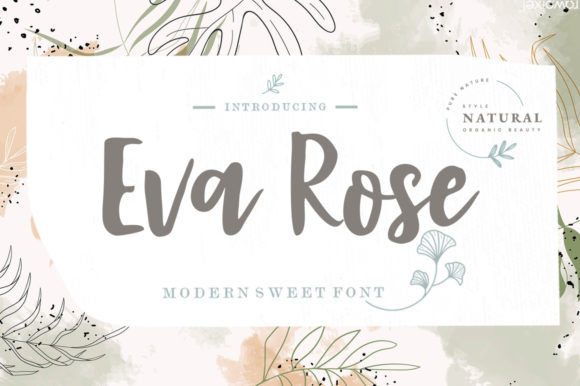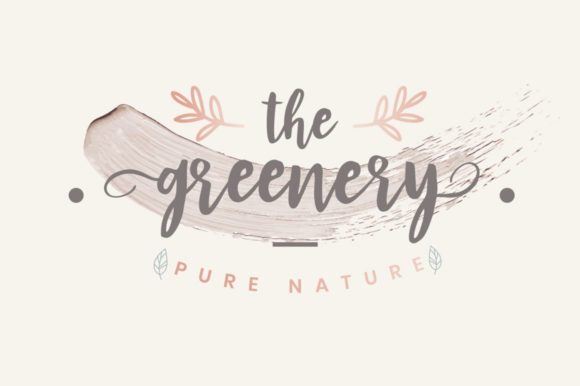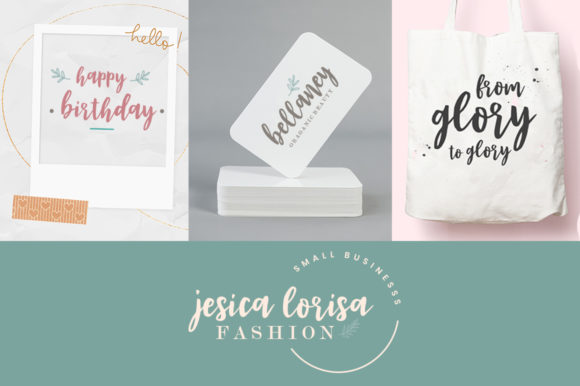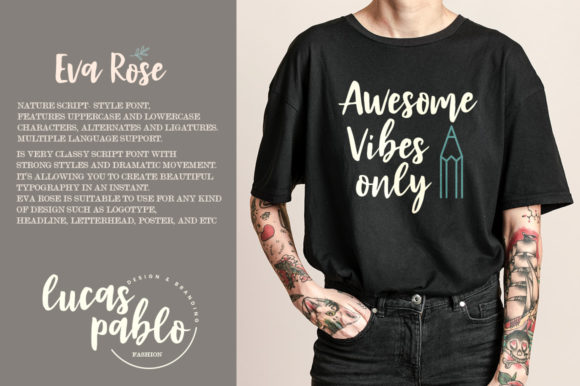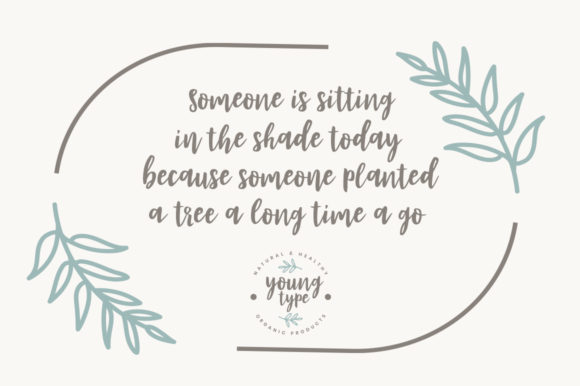
Eva Rose Font
About Eva Rose Font
Eva Rose feels gorgeous and light, but also elegant. This stunning script will effortlessly elevate any crafting project to the highest level! Eva Rose is PUA encoded which means you can access all of its charming glyphs and swashes with ease! It also features a wealth of special features including alternate glyphs and ligatures.